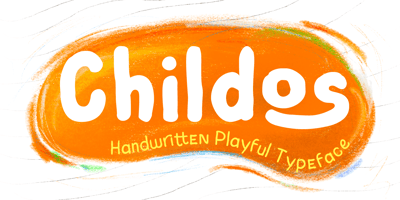
Childos
Childos font
Childos Font Family was designed by Nur Syamsi, Bustanul Arifin and published by NamelaType. Childos contains 10 styles and family package options. Childos is a handwritten font in rounded, rough sans serifs style, as well as the development of free and attractive ligature to fill the space between letters and make playful children feel designs.